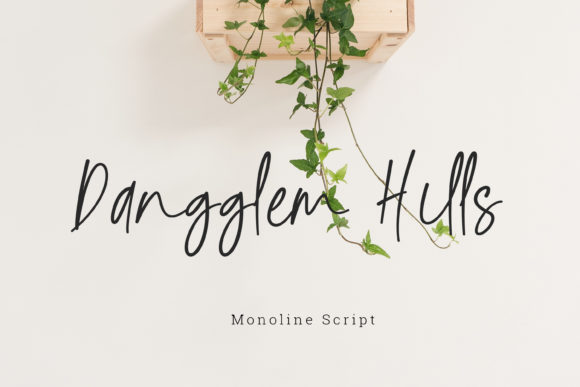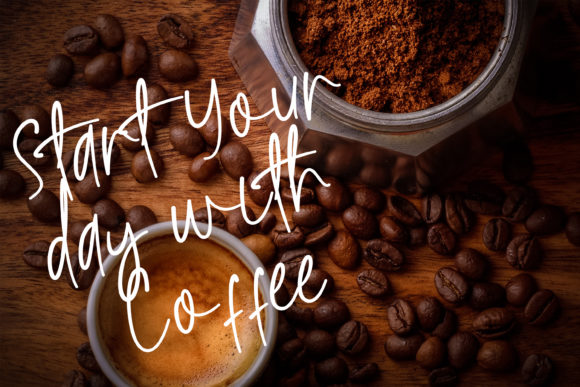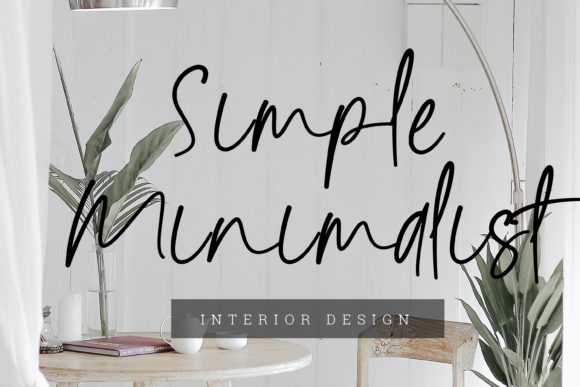
Dangglem Hills Font
Dangglem Hills is a flowing and relaxed handwritten font. Fall in love with its incredibly distinct and timeless style and use it to create spectacular designs!